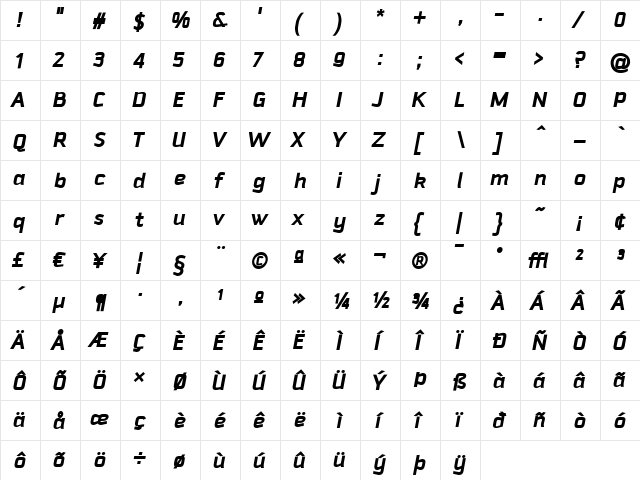
Downtempo Regular
Design Context for Downtempo Typeface
Downtempo takes a measured approach to typography — its balanced proportions and neutral character make it a reliable workhorse for both digital and print work.